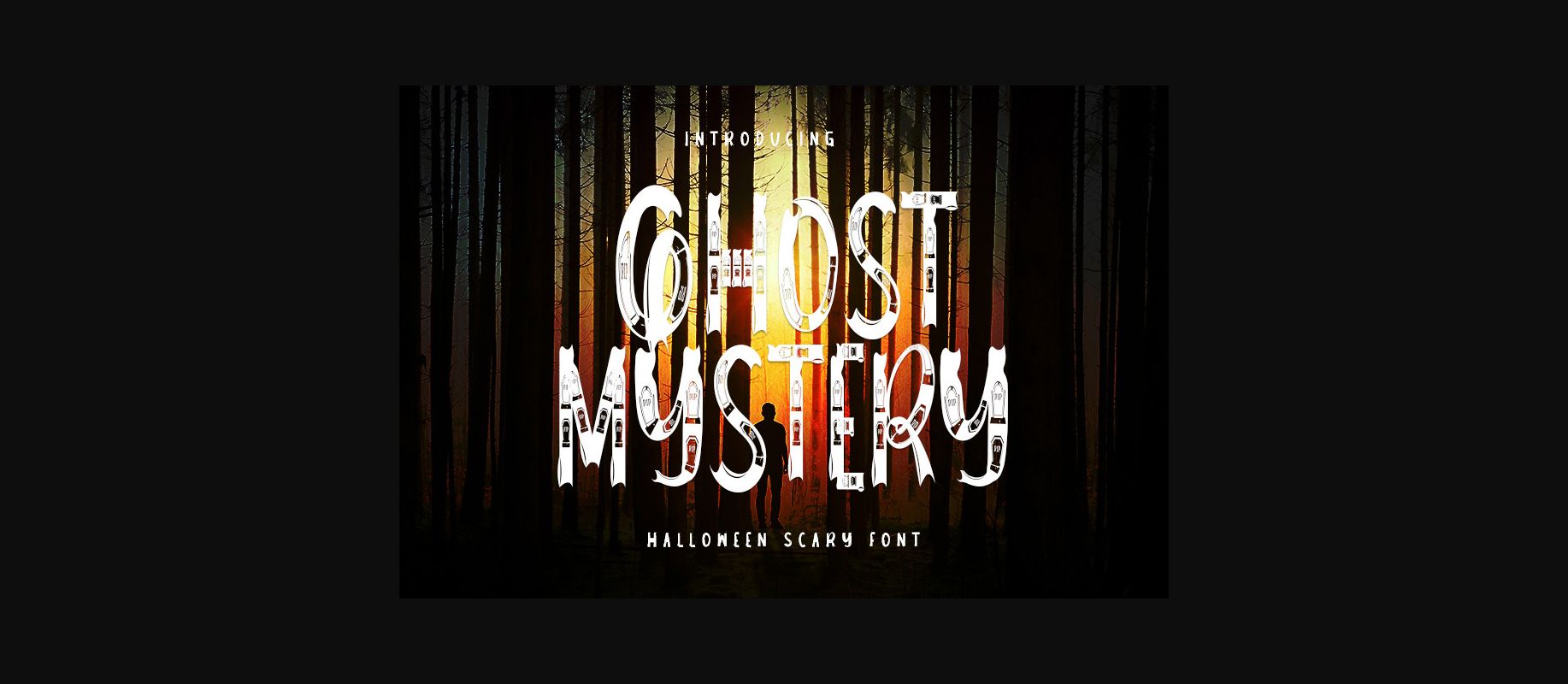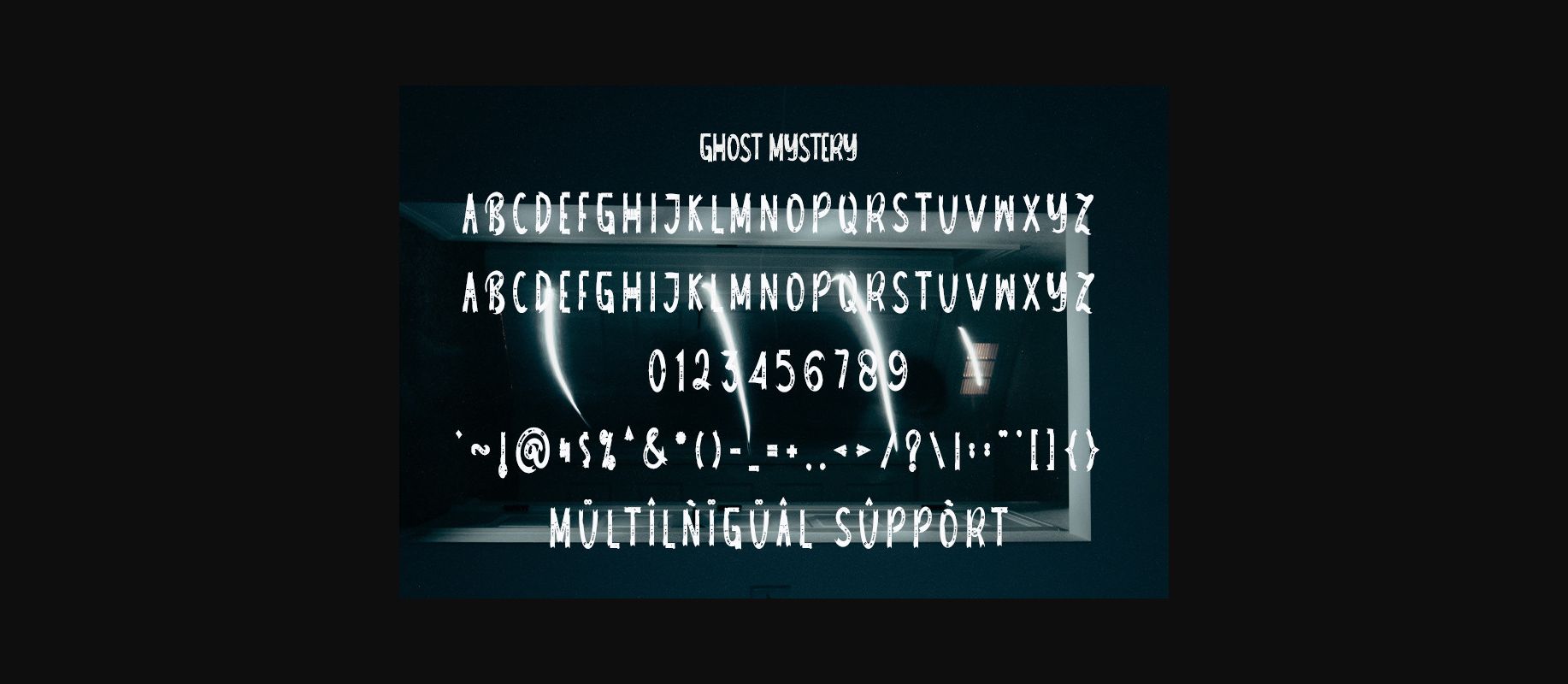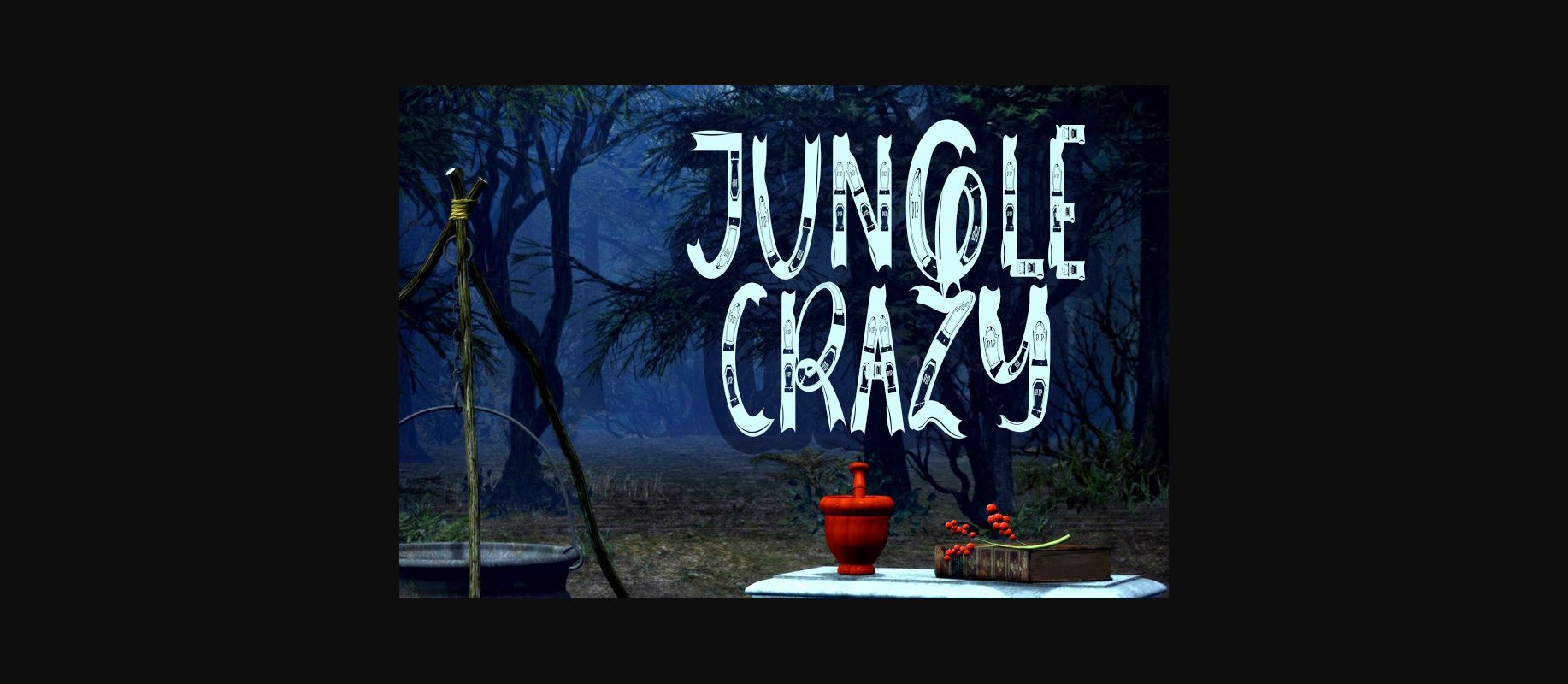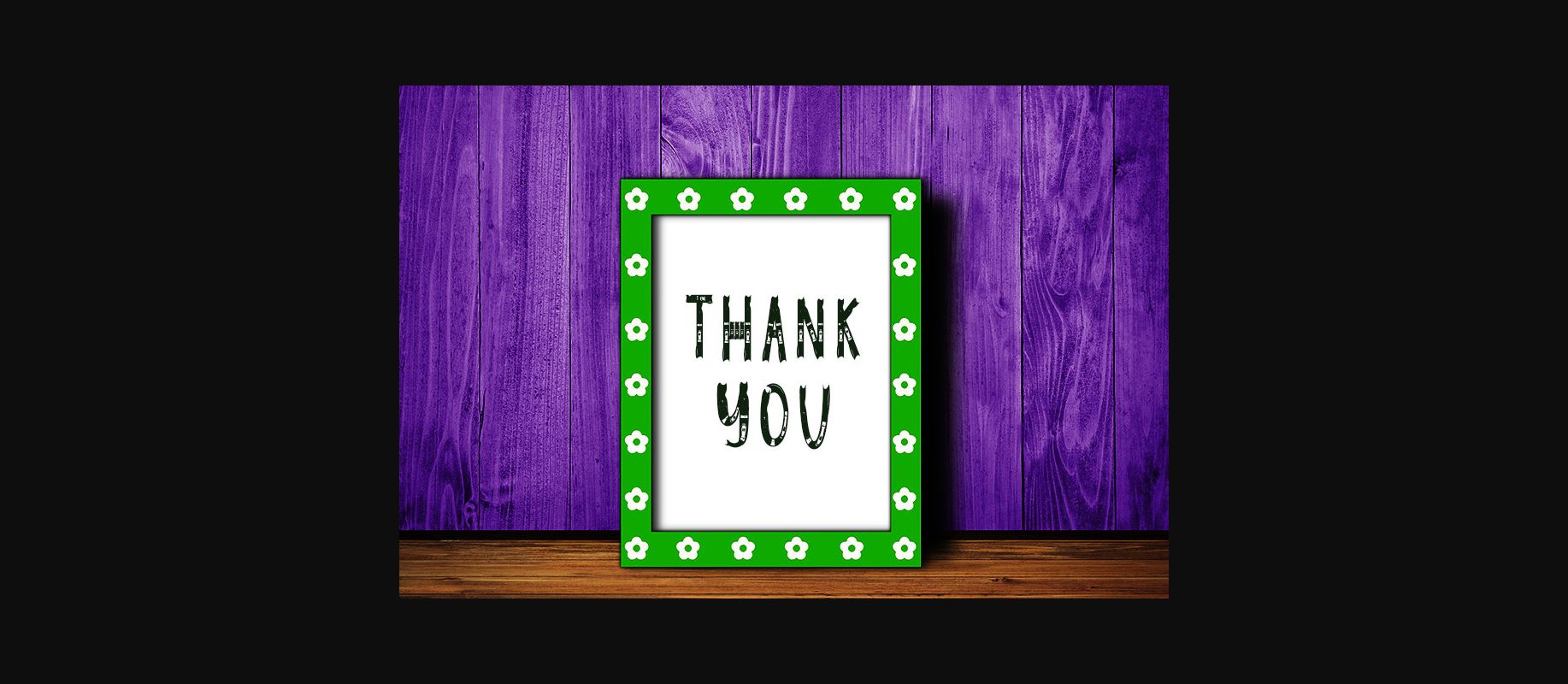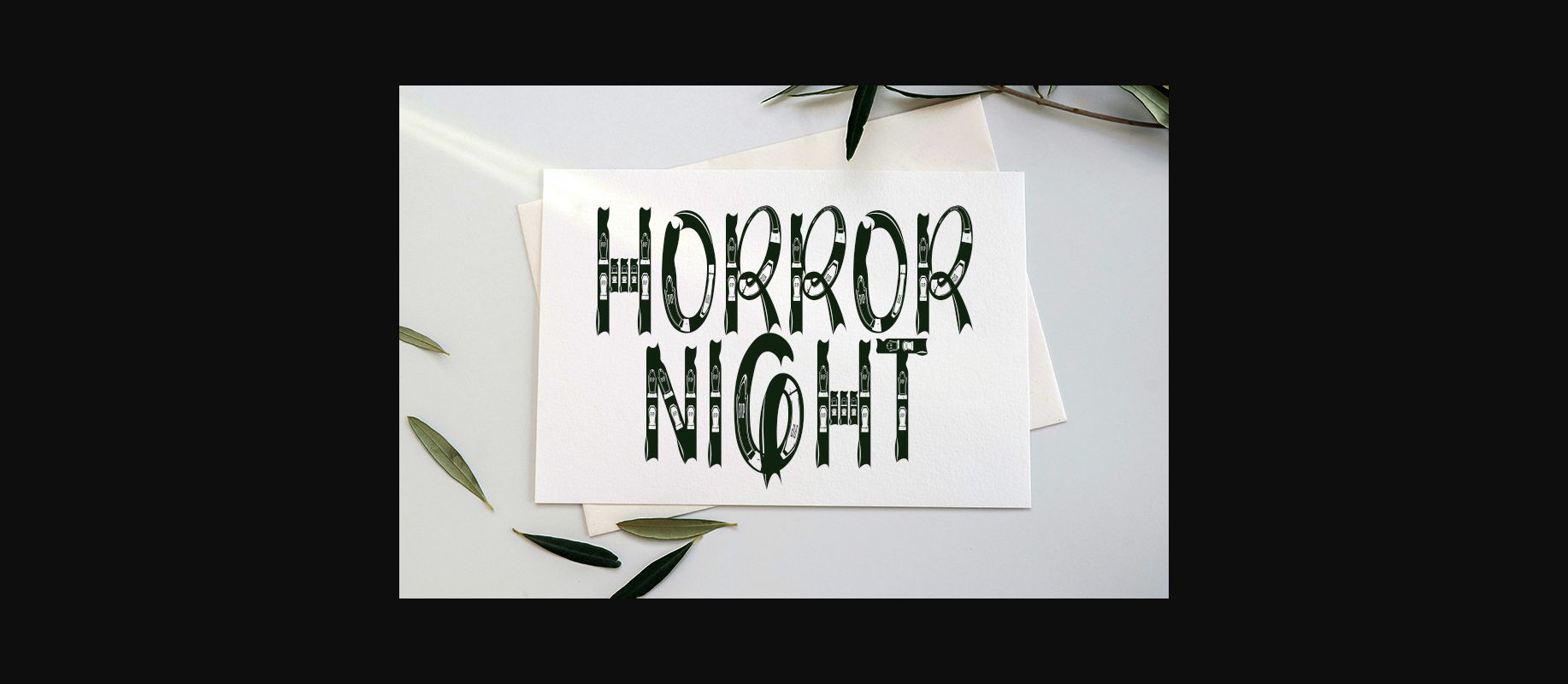
About Ghost Mystery Font
Ghost Mystery is a bold and fun decorative font, perfectly suitable for Halloween! It embodies playfulness and mystery, and itβs great for messages that need to stand above the background!